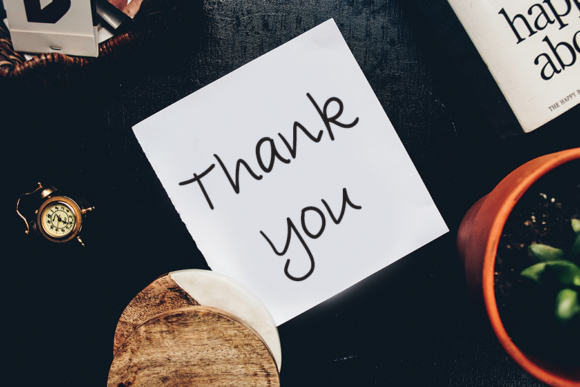
Introduction to Rollina Font
Have you ever stumbled upon the perfect font while working on a creative project, and suddenly everything falls into place? For designers, this moment is pure magic. It’s the moment when your ideas start to shine, and your design begins to tell a story. For many, this moment is made possible by the Rollina Font – a friendly handwritten font with a modern style that elevates any design project to new heights.
The Rollina Font is more than just a design resource; it’s a game-changer. With its high-quality, modern aesthetic, it’s perfect for branding, headings, wedding designs, invitations, signatures, logos, labels, and much more. Whether you’re a seasoned designer or just starting out, this versatile font is sure to become a trusted companion in your creative journey.
Key Features of Rollina Font
- High-quality, professional design ideal for creative projects and various design resources.
- Comes with a transparent background, allowing for easy integration into different design elements.
- Features a large character set, including Latin, Cyrillic, and Greek alphabets, making it suitable for international designs.
- Designed to be highly scalable, ensuring that the font remains legible and clear even at large font sizes.
Honest Review: Rollina Font
I recently had the chance to experiment with the Rollina Font, and I must say it’s been a game-changer for my creative project. This high-quality font is a fantastic addition to any designer’s toolkit, and its transparent background makes it incredibly versatile.
- ✨ Elegant and sophisticated design that adds a touch of sophistication to any text.
- ⚠️ Limited character set, which may not be ideal for projects requiring a wide range of characters.
Overall, I’m thoroughly impressed with the Rollina Font. Its high-quality design, transparent background, and free download make it an excellent design resource for any creative project. While it may have some limitations, I believe it’s well worth considering for your next design endeavor.
To get the most out of Rollina Font, use it in combination with other design elements, such as images and graphics. Experiment with different font sizes, colors, and styles to create a unique look.
The Rollina Font is ideal for various design projects, including:
Wedding invitations, birthday cards, and other special occasion designs
Branding and marketing materials, such as logos and business cards
Web design and development projects, including website headers and footers